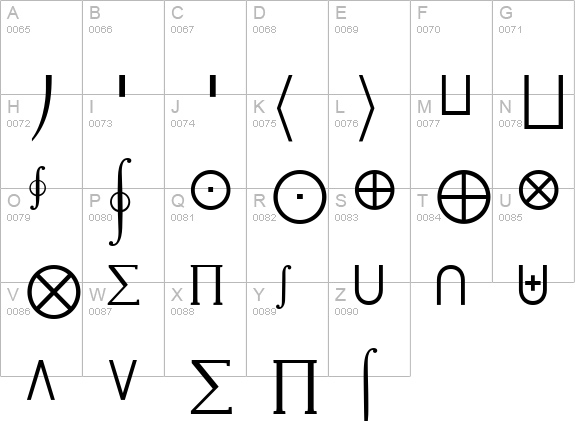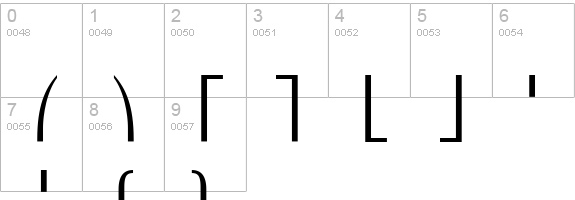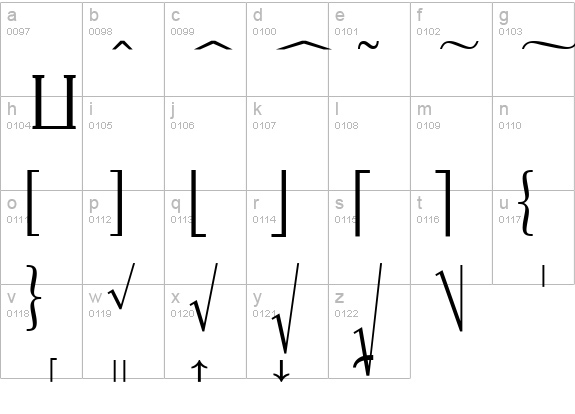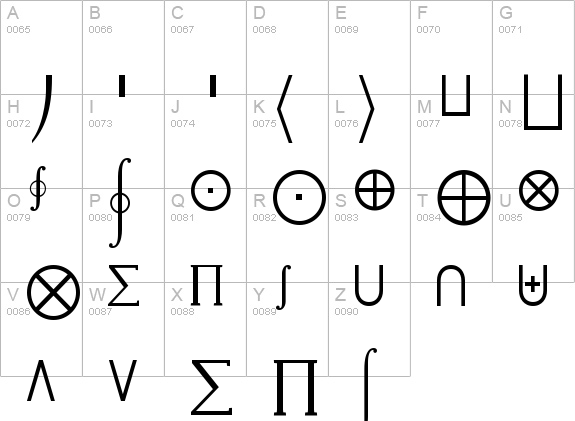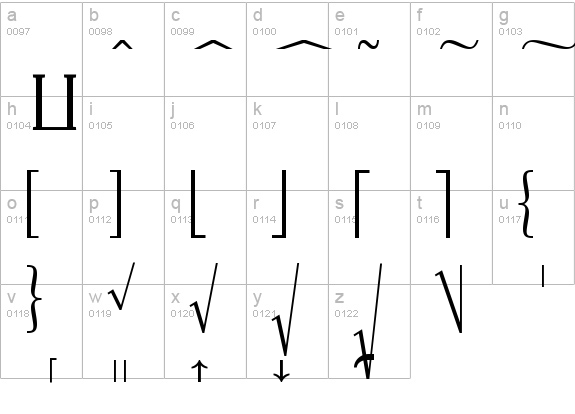
Insight Math Extension SSi Extension Font Details
Introducing the Insight Math Extension SSi Extension font, a beautifully crafted typeface that adds a touch of sophistication and elegance to any design project. This font is an extension of the popular Insight Math font, designed specifically for those seeking a more refined and intricate look. With its intricate curves and delicate details, Insight Math Extension SSi Extension font is perfect for a wide range of applications, from branding and logo design to editorial layouts and packaging. Its versatile nature allows it to adapt effortlessly to various design styles, making it a favorite among designers and creatives alike. But what sets Insight Math Extension SSi Extension font apart is not just its stunning aesthetics, but also its accessibility. It is available for free download at FontsMarket.com, allowing designers of all levels to access and utilize this remarkable font without any restrictions. Whether you're a professional designer looking to elevate your projects or a hobbyist experimenting with typography, Insight Math Extension SSi Extension font offers a wealth of possibilities. Its timeless appeal and distinctive character will undoubtedly make your designs stand out from the crowd. Download Insight Math Extension SSi Extension font today from FontsMarket.com and unlock the potential to create visually captivating and engaging designs. Embrace the beauty of this font and let it inspire your creativity to new heights.